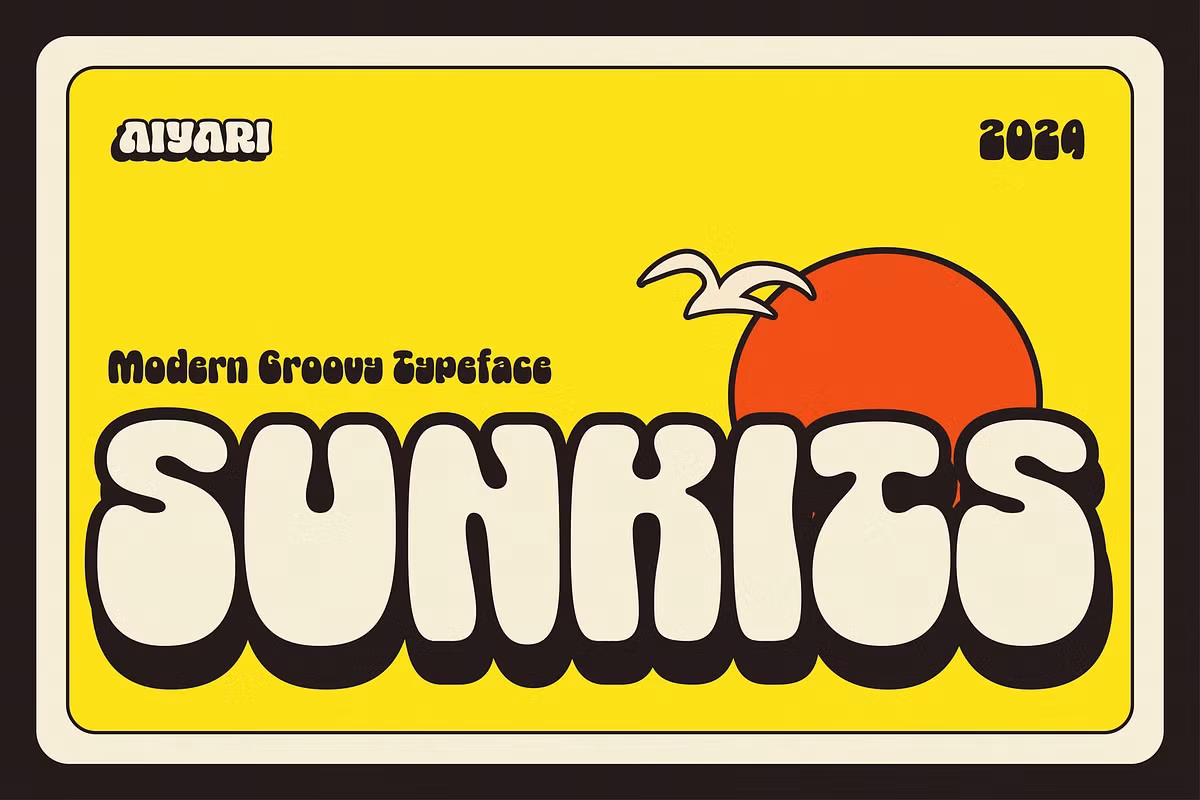
Sunkits Modern Groovy Typeface Free Download
Sunkits Modern Groovy Typeface is perfect for retro-modern branding, funky fashion labels, groovy music promotions, vintage-inspired designs, playful poster creation, fun party invitations, creative social media graphics, trendy packaging design, cool lifestyle brands, vibrant advertising campaigns, artistic portfolio projects, and contemporary groovy communications.
Sunkits Modern Groovy Typeface is exciting because it perfectly captures the infectious energy and laid-back coolness of groovy culture through its modern interpretation of retro styling that brings fresh contemporary vibes to classic funky aesthetics. This captivating typeface features flowing curves and playful character details that embody the free-spirited nature of groove culture while maintaining contemporary design sophistication. The font's groovy character creates instant connections with audiences who appreciate both retro coolness and modern style, making every message feel effortlessly hip and timelessly cool.
Sunkits Modern Groovy Typeface includes comprehensive font families: Regular Groovy Style, Bold Funky Weight, Light Cool Touch, Medium Smooth Balance, Italic Flowing Movement, Condensed Tight Format, Extended Wide Groove, Retro Vintage Version, Shadow Depth Effects, and Special Groovy Symbols, providing endless creative possibilities for funky retro-modern design projects that celebrate groove culture and contemporary coolness.
This captivating typography solution transforms ordinary communications into groovy modern experiences through its authentic retro-contemporary aesthetic and funky design language. Sunkits Modern Groovy Typeface Free Download enables designers and cool brands to access premium groovy typography that instantly adds funk, style, and contemporary groove appeal to any creative project. The font's carefully crafted groovy elements ensure authentic retro character while maintaining modern sophistication and distinctive cool presence.
Fashion brands, music labels, and lifestyle companies trust Sunkits Modern Groovy Typeface for its ability to communicate coolness, creativity, and groovy sophistication to audiences seeking authentic retro-modern experiences and funky contemporary aesthetics. The typeface's smooth construction performs beautifully across various applications, from intimate groovy communications to large-scale funky branding campaigns. Its extensive character support includes multilingual capabilities and groovy design elements that enhance cool retro-modern brand presentations.
The creative inspiration behind Sunkits Modern Groovy Typeface draws from the golden age of groove culture, contemporary design trends, and the timeless appeal of funk aesthetics that continue to influence modern style and creative expression. This groove-focused approach creates a font that feels genuinely funky while maintaining contemporary relevance across different retro-modern contexts and cool brand expressions.
Whether creating retro-modern brand identities, funky fashion materials, or groovy marketing campaigns, this modern groovy typeface delivers exceptional results that embody the perfect fusion of retro coolness and contemporary style. Download Sunkits Modern Groovy Typeface today and discover how premium groovy typography can transform your design projects into funky expressions of retro-modern sophistication, contemporary coolness, and the timeless groove that defines the most stylish and memorable brand communications.